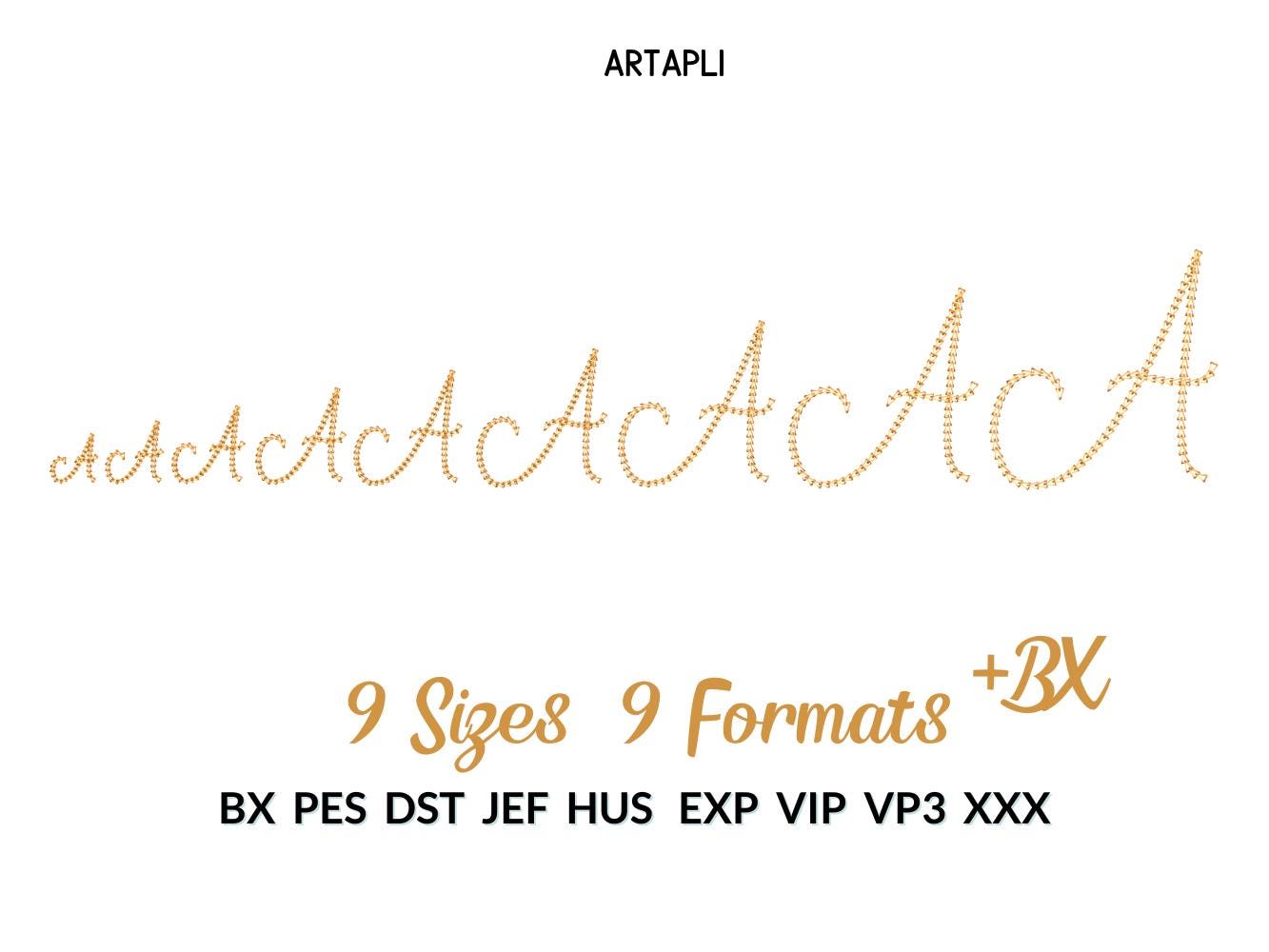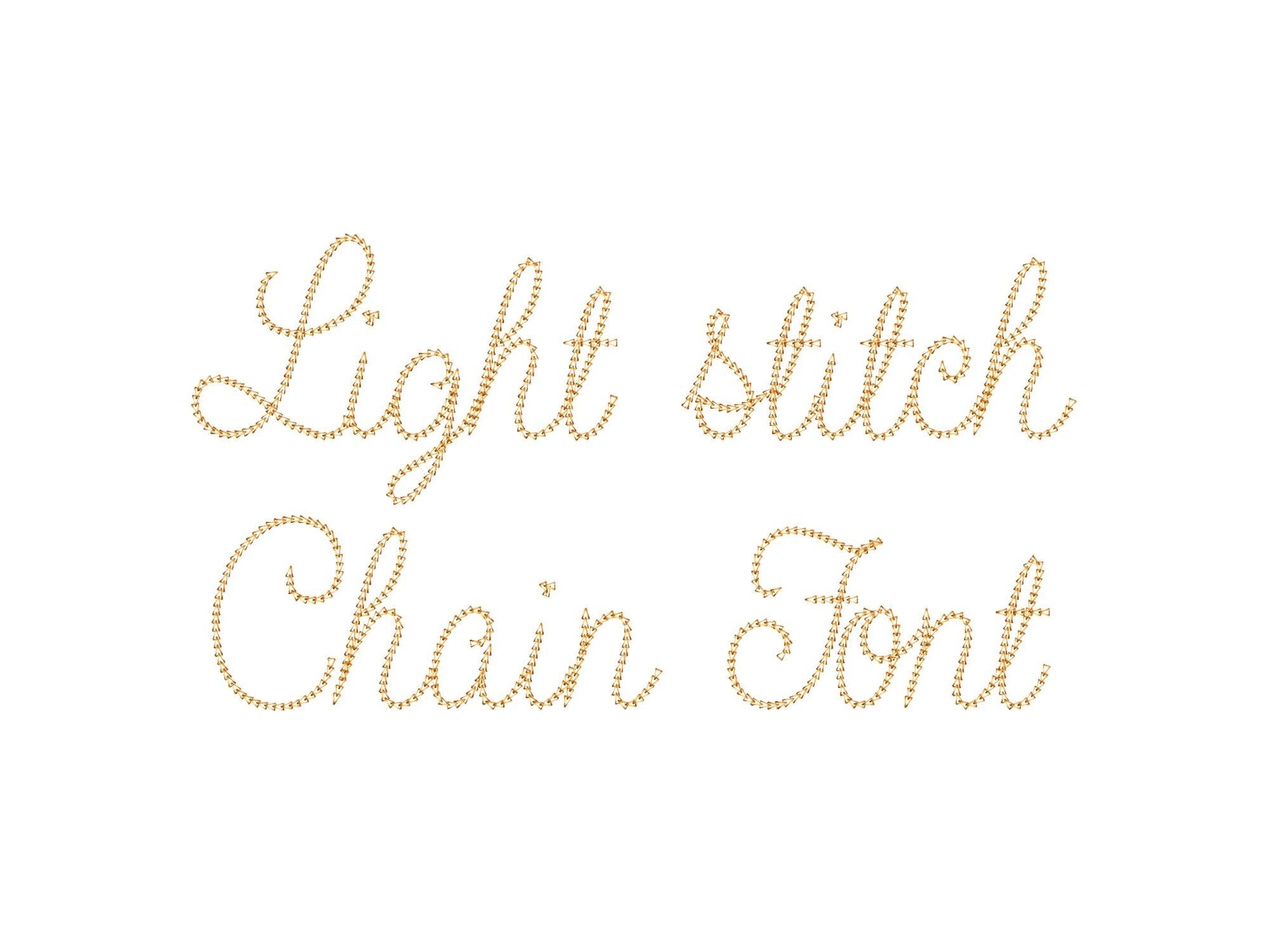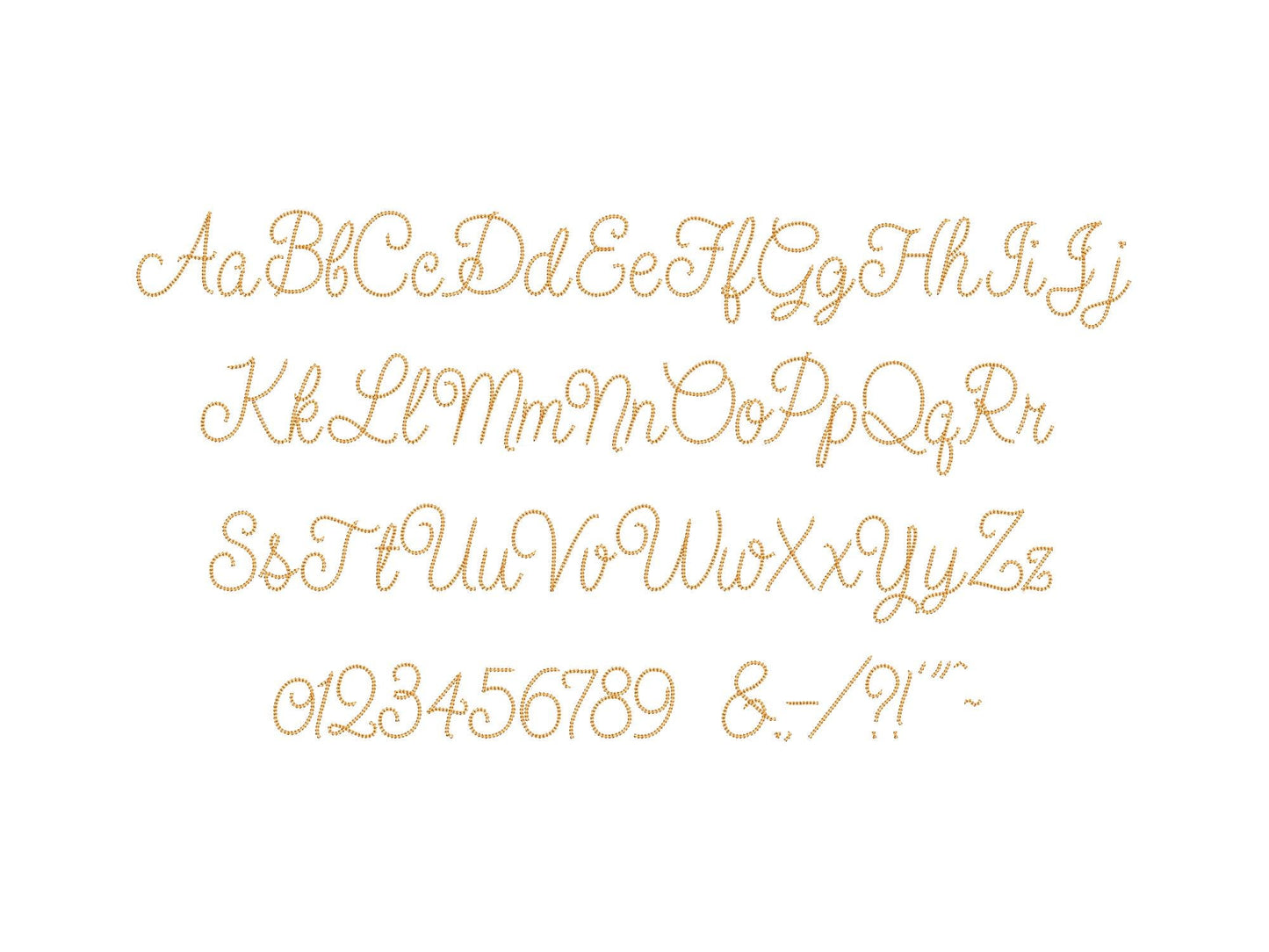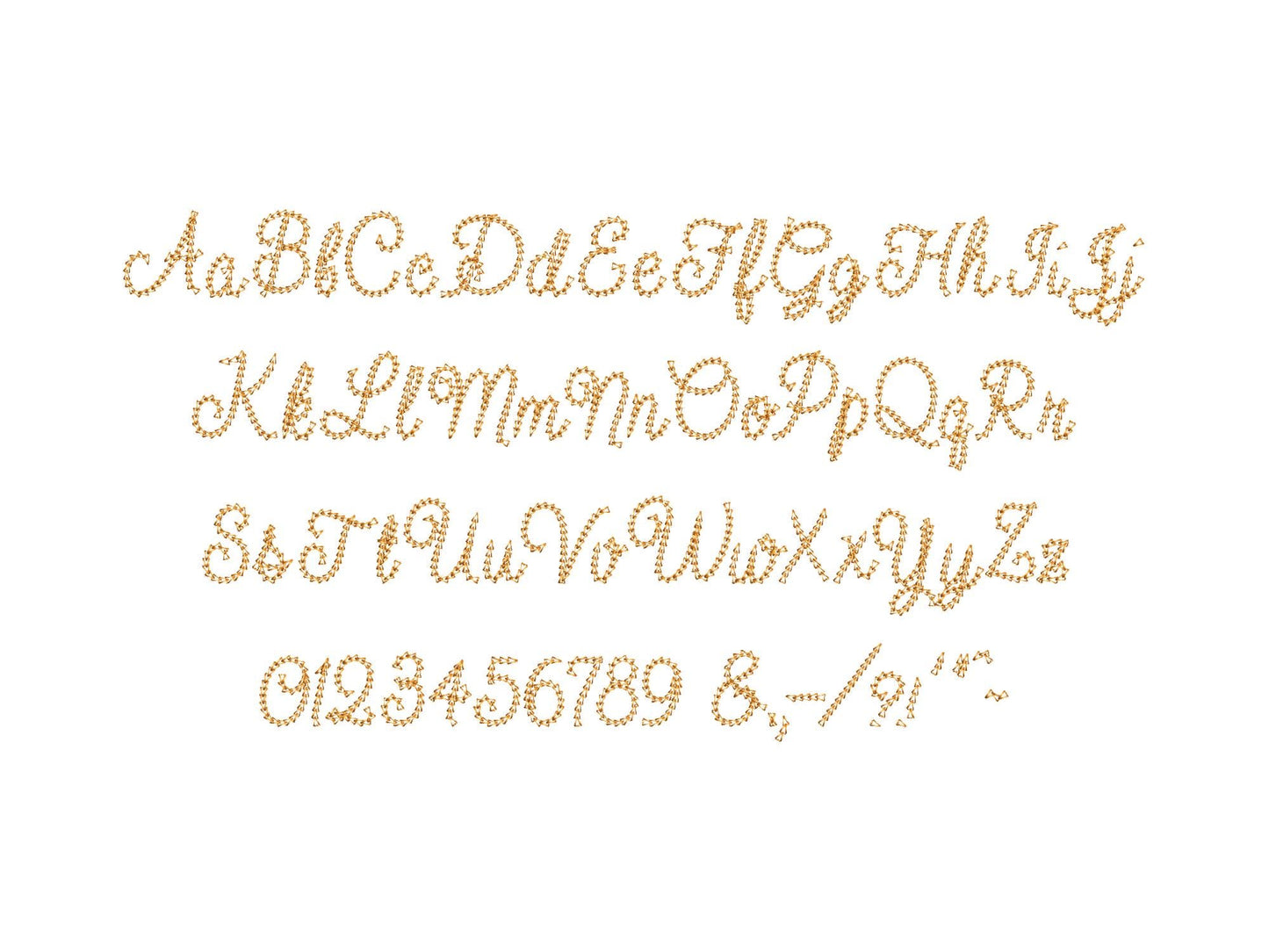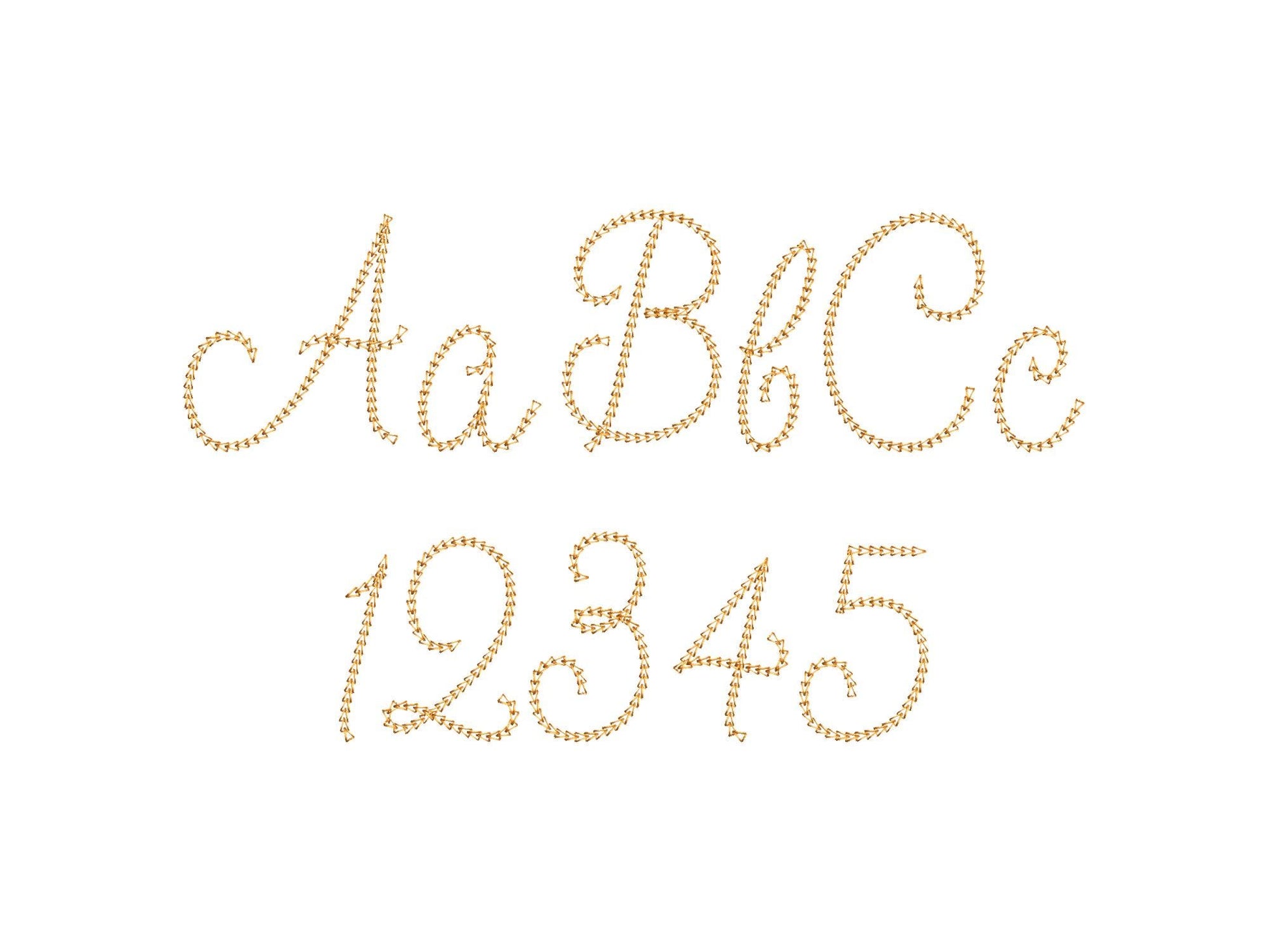
Or click to open the linkA light-stitch chain cursive script for names and words on shirts, sweatshirts, bags and gifts.
Uppercase and lowercase letters, numbers and punctuation in nine sizes: 1, 1.2, 1.5, 1.8, 2.2, 2.7, 3.2, 3.8 and 4.6 inches.